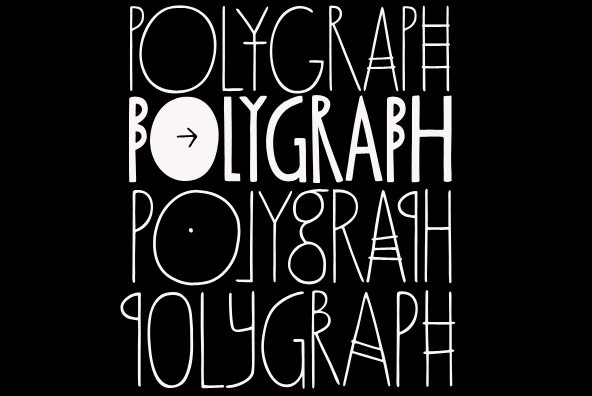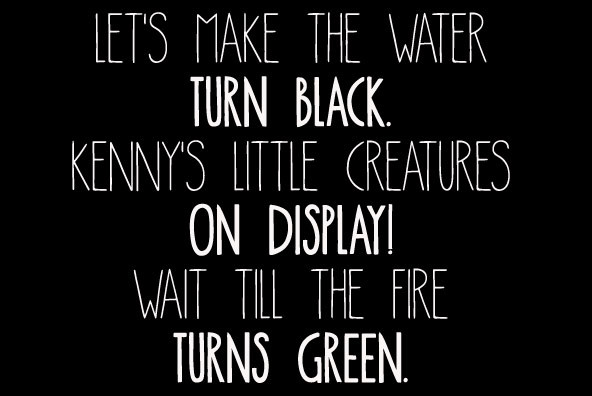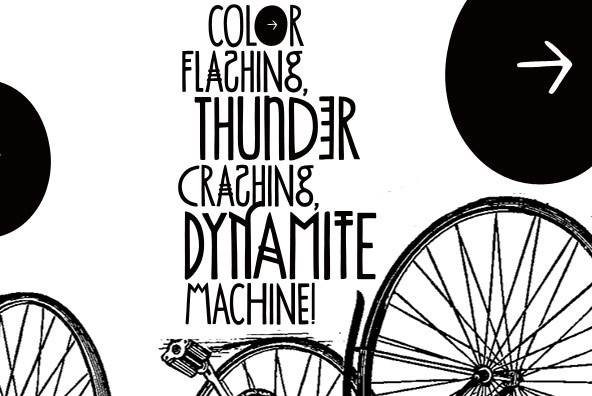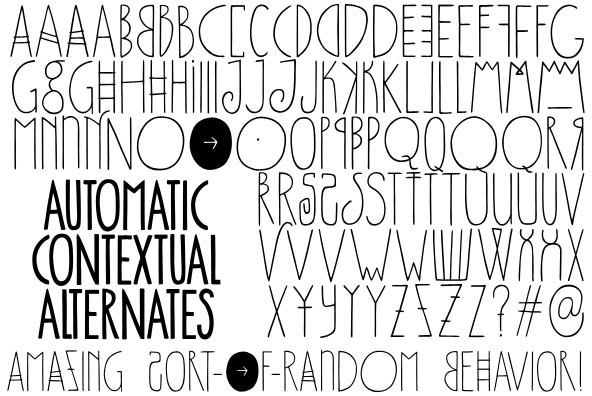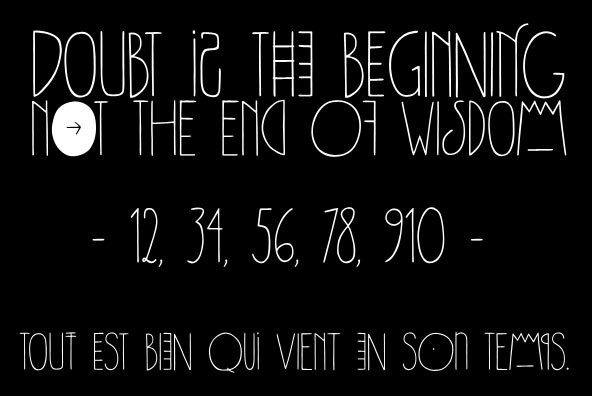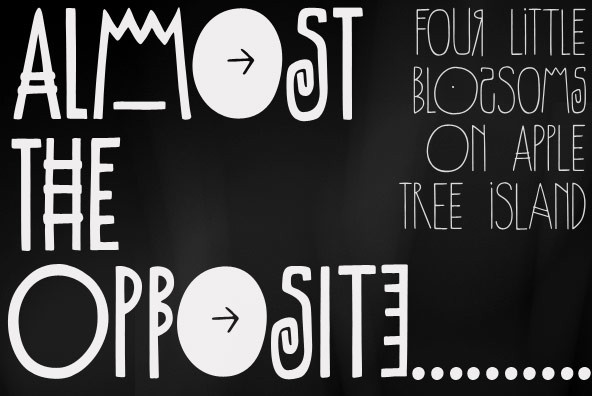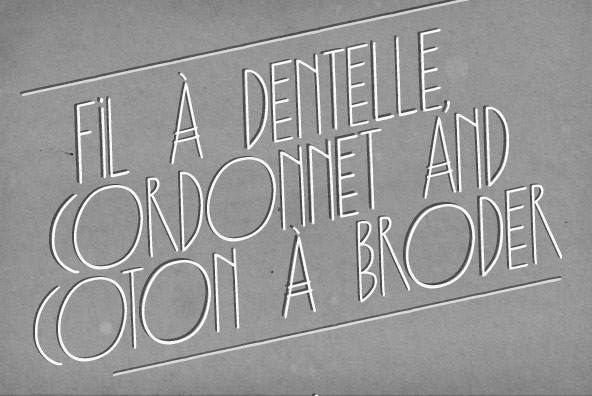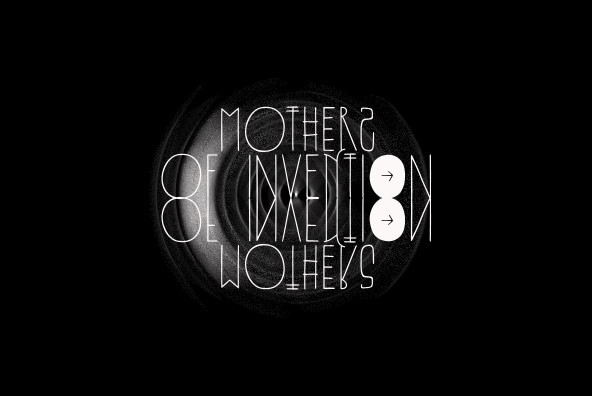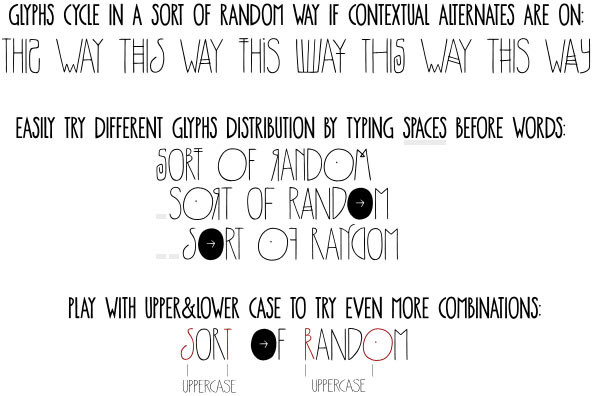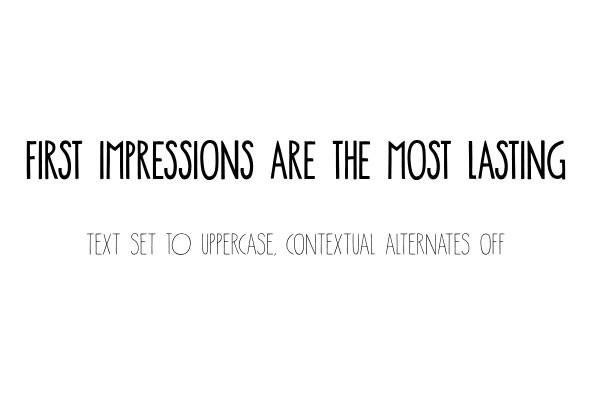
Polygraph
Inspired on posters by the extraordinary polish artist Leszek Zebrowski, Polygraph is a highly unusual face. Packed with eccentric alternates, it is an all-caps font with four exchangeable variations for each letter. These alternates are programmed to cycle when the font is used in OpenType-savvy programs, creating a random effect on glyphs distribution. The resulting pieces are truly outstanding, with an audacious handmade twist. To achieve this, just turn on the contextual alternates feature and play - you can easily try different glyphs sequences by adding spaces before words. When you need a more well-behaved look, but still with a subtle hand-drawn flair, turn off the contextual alternates and set text in uppercase. Polygraph comes in two weights, for added flexibility. But be warned: it's quite addictive!